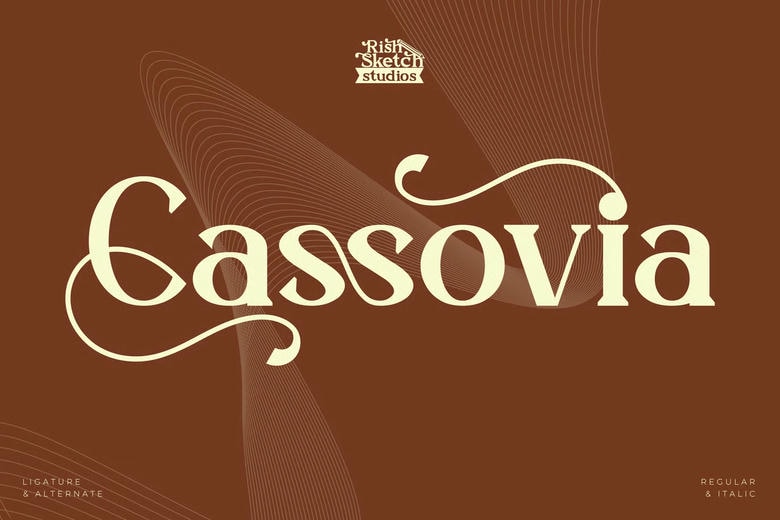
Cassovia is a high quality serif font that is designed by sparklethings and is available for free download and personal use. The free version provides all uppercase and lowercase letters and a few special characters too.
Cassovia Font is perfect for elegant logos, branding, travel promotions, layout magazines, beauty products, product packaging, quotes, or simply as a stylish text overlay onto any background image.
Cassovia Serif Font